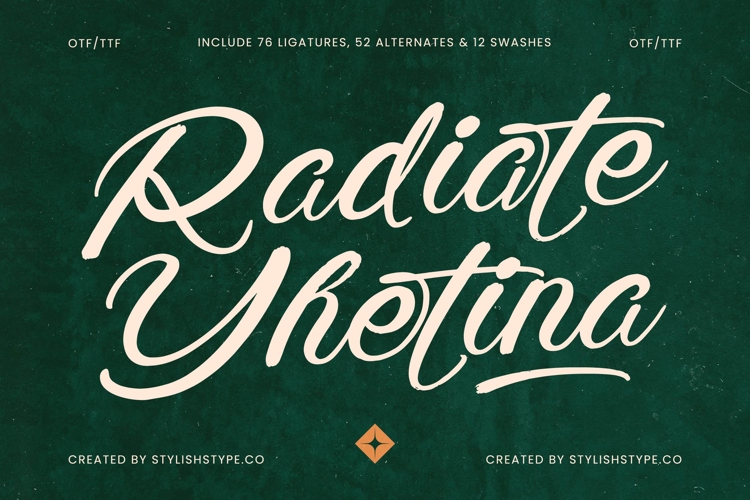
Radiate Yethina - Modern Script Font
Elevate your designs with the captivating charm of Font Radiate Yethina - Modern Script Font Script. This exquisite typeface blends modern elegance with an authentic handcrafted appeal, creating a harmonious balance that is both sophisticated and inviting. Its flowing lines and graceful connections evoke refined artistry, ensuring your typography leaves a memorable impression. Perfect for those seeking to infuse their work with timeless style.
Unlock unprecedented design flexibility with Font Radiate Yethina - Modern Script Font Script. Boasting an impressive collection of 76 ligatures, 52 alternates, and 12 swashes, this font provides extensive creative possibilities. These rich OpenType features allow for truly unique character combinations, enabling you to craft bespoke logos, striking headlines, and personalized branding elements with effortless grace. It’s a tool designed to empower designers to realize ambitious visions.
Experience global design impact with Font Radiate Yethina - Modern Script Font Script. With its extensive multilingual support, Font Radiate Yethina - Modern Script Font Script adapts seamlessly across global markets, making it incredibly versatile for international projects. This font is ideally suited for luxury branding, wedding invitations, upscale packaging, editorial design, and any project demanding exclusive sophistication and artisan charm.